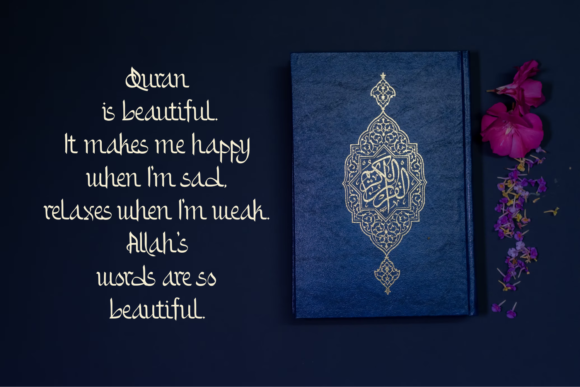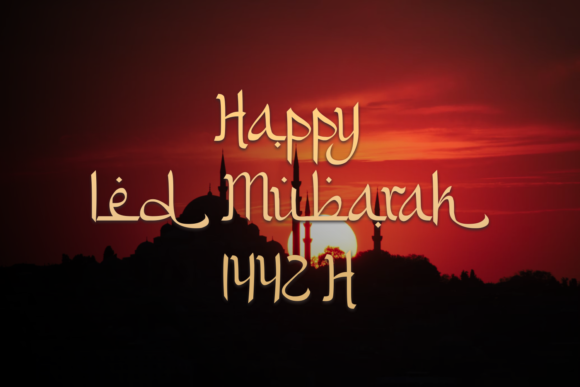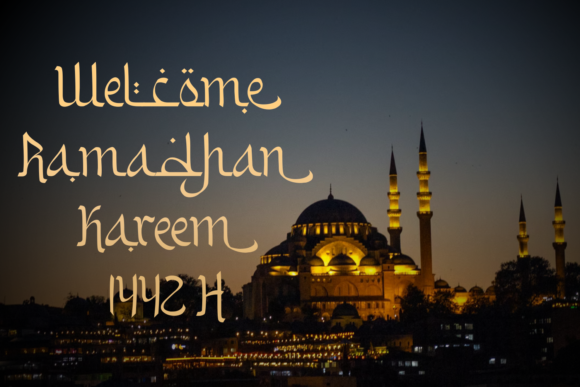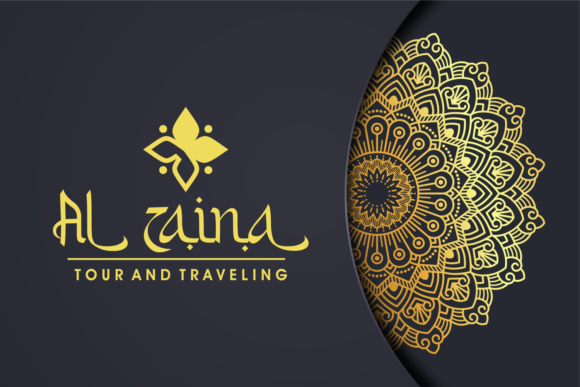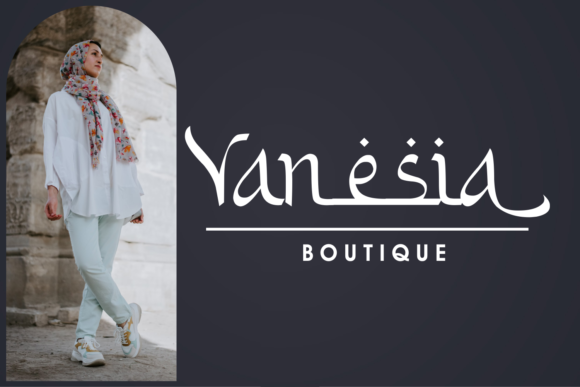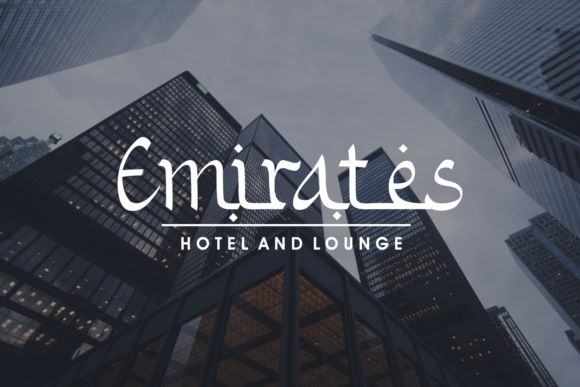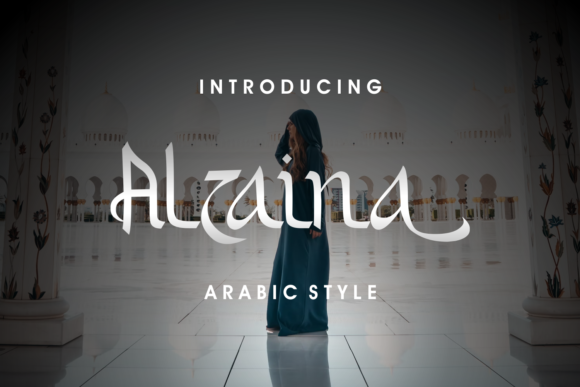
The Designer’s Delight: Al Zaina Font
I’ll never forget the moment I stumbled upon Al Zaina Font while working on a project that required a touch of elegance and sophistication. I had been searching for the perfect handwritten font for hours, but nothing seemed quite right. That was until I laid eyes on Al Zaina – its exquisite calligraphic influences and modern freshness immediately captured my heart. In this article, I’ll share my experience with this stunning font, its features, and how to make the most of it in your designs.
• ✨ Exquisite calligraphic influences: Al Zaina’s design is rooted in traditional calligraphy, giving it a classy and sophisticated feel.
• ✅ Contemporary and fresh: Despite its classic roots, Al Zaina feels modern and trendy, making it perfect for a wide range of design projects.
• 💡 PUA encoded: The font comes with PUA (Private Use Area) encoding, which means you can easily access all the amazing glyphs and ligatures.
While Al Zaina is an exceptional font, there are a few minor things to keep in mind:
• ⚠️ Glyph compatibility: Some glyphs might not work seamlessly with certain software or platforms, so it’s essential to test them before finalizing your design.
• 🤔 Character limit: As with any font, be mindful of the character limit when using Al Zaina for large-scale projects or extensive text.
The Story Behind Al Zaina
While the actual origins of Al Zaina might be unclear, it’s easy to imagine that its designer was inspired by the intricate beauty of traditional calligraphy. With a keen eye for detail and a passion for modern design, they crafted Al Zaina to be both timeless and trendy. The result is a font that feels both classic and fresh, perfect for designers seeking a unique touch for their projects.
Q: What is PUA encoding, and how does it benefit Al Zaina users?
A: PUA (Private Use Area) encoding allows font designers to include additional glyphs and characters that aren’t part of the standard Unicode range. For Al Zaina users, this means easy access to a wide range of ligatures, glyphs, and stylistic alternates, making it easier to create beautiful, unique designs.
Q: Is Al Zaina suitable for large-scale projects or extensive text?
A: While Al Zaina is an exceptional font, its suitability for large-scale projects or extensive text depends on the specific design requirements. As with any font, consider factors like character limit, glyph compatibility, and overall readability when using Al Zaina for extensive text.